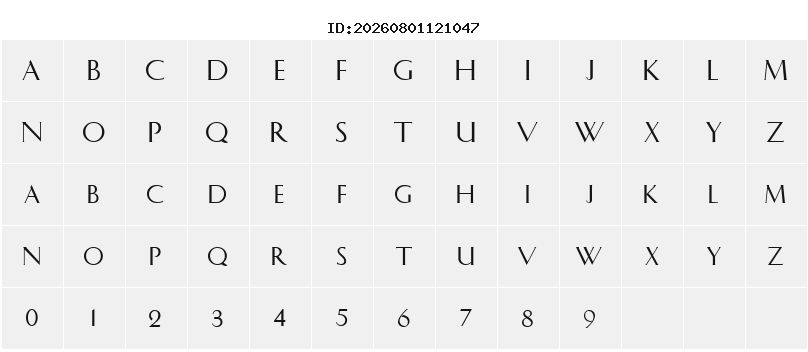
LHF Charlotte Preview
About LHF Charlotte.ttf
LHF Charlotte.ttf is a modern, elegant sans-serif font designed for ultimate readability and visual harmony. Perfect for branding, headlines, web design, and print materials.